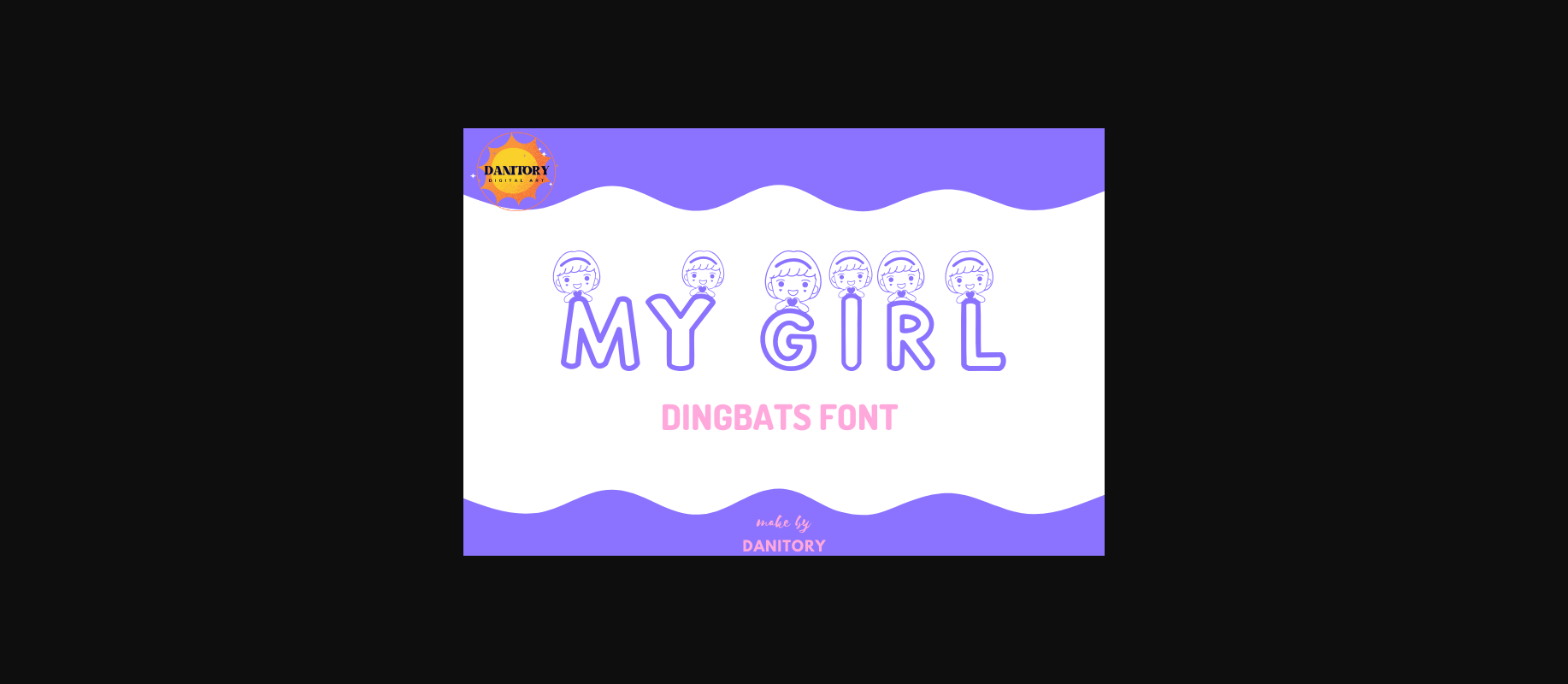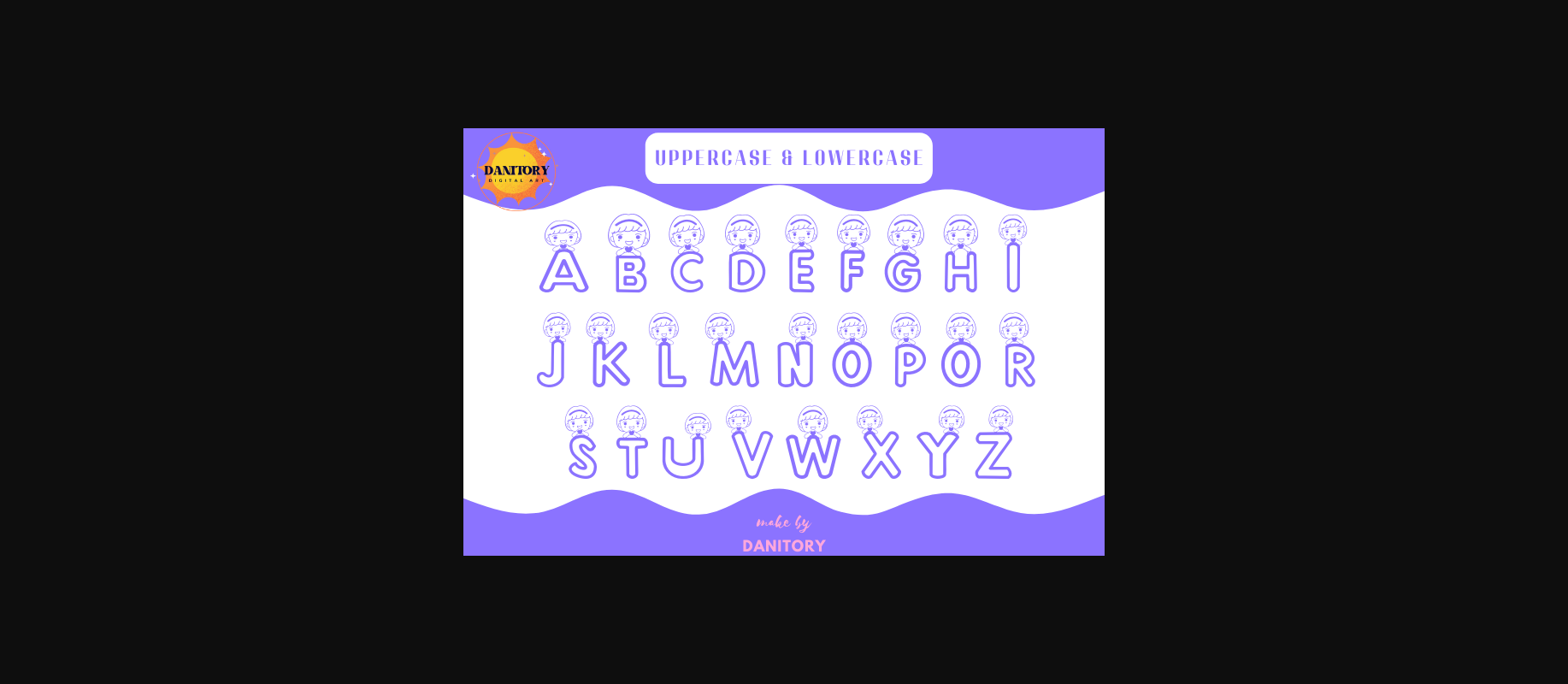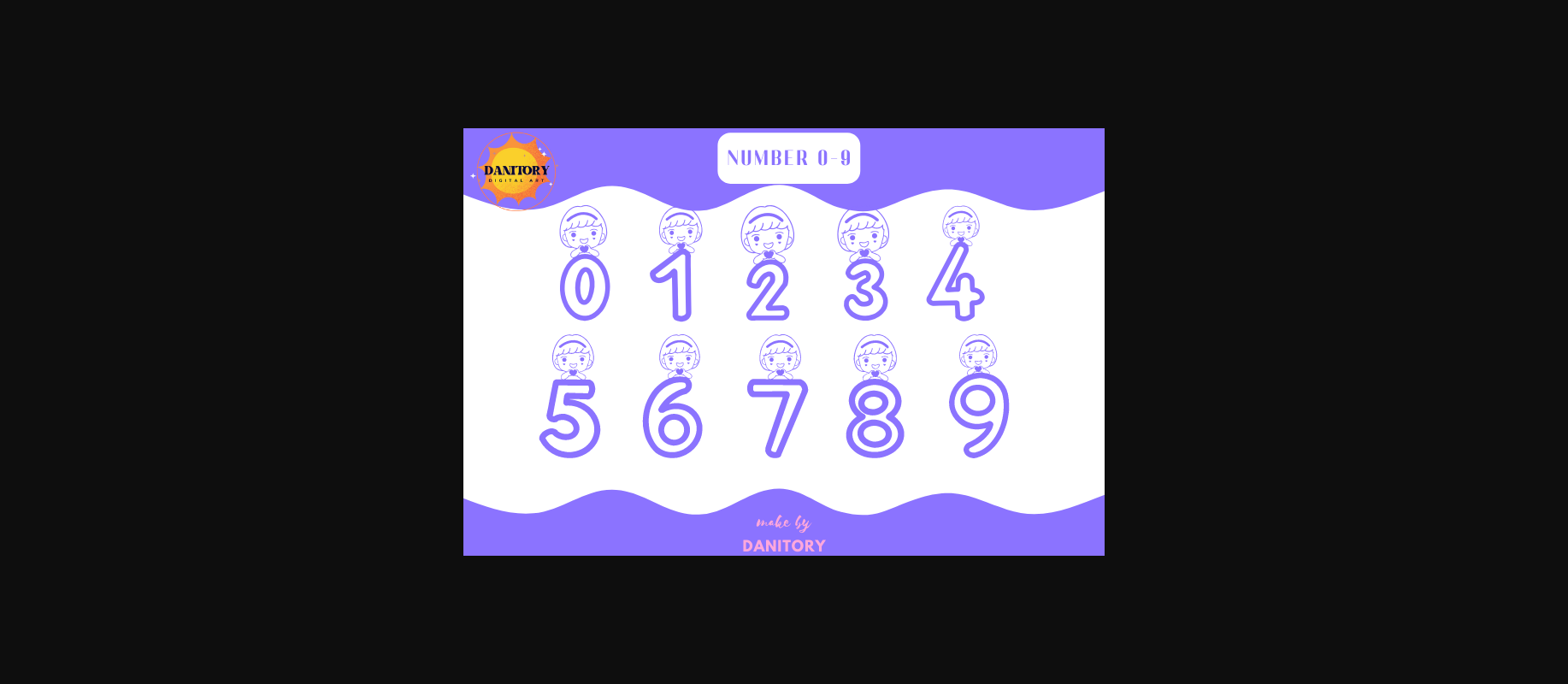
My Girl Font
About My Girl Font
My Girl Font is a cute and gentle Decorative font that is perfect for embellishing and combining pieces with your products. This will result in your work being cuter and sweeter. This font is perfect for kids, worksheets, tutorials, invitation-making, inserts, packaging, and any branding project they want. to convey a fun and friendly atmosphere